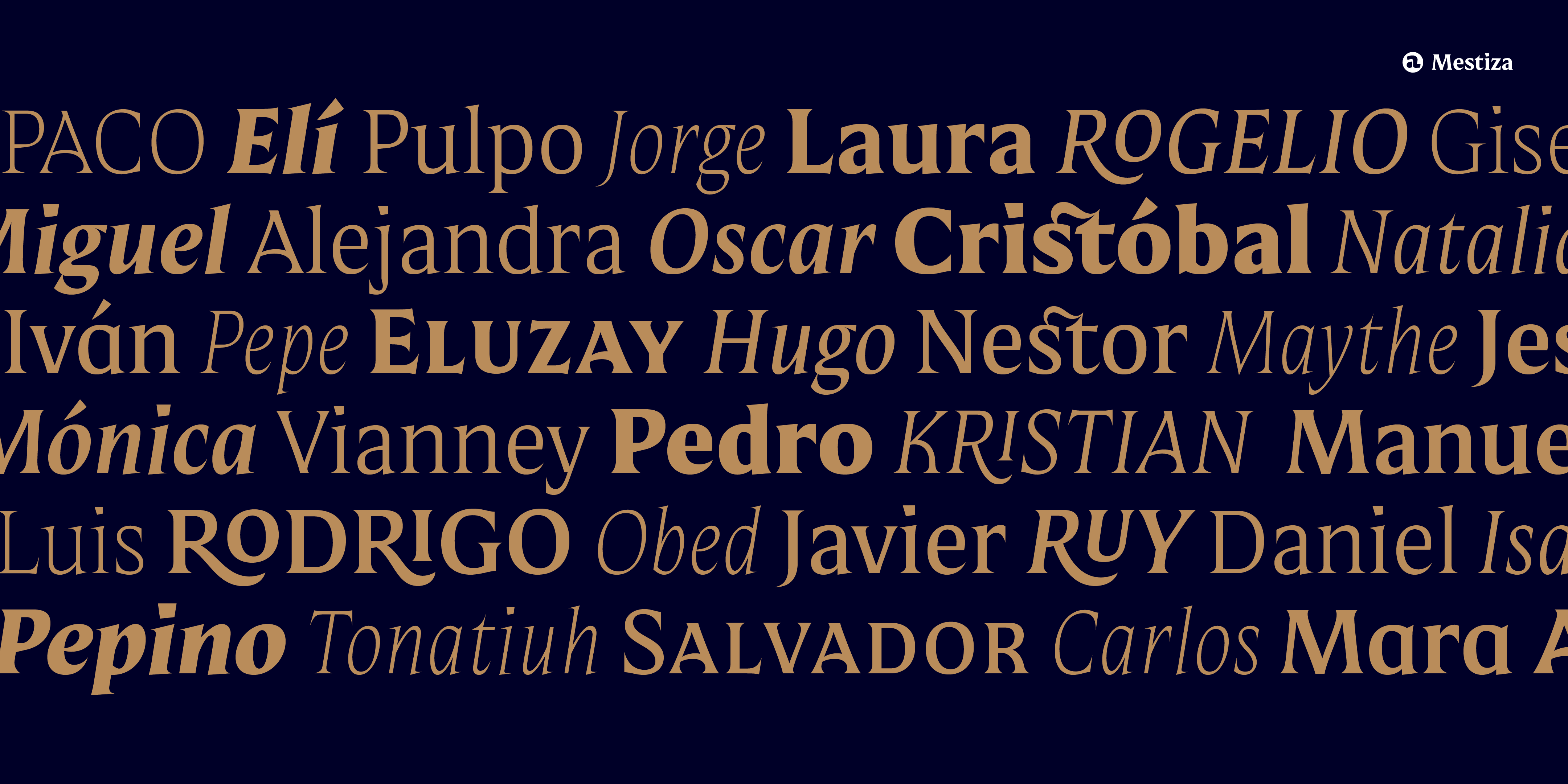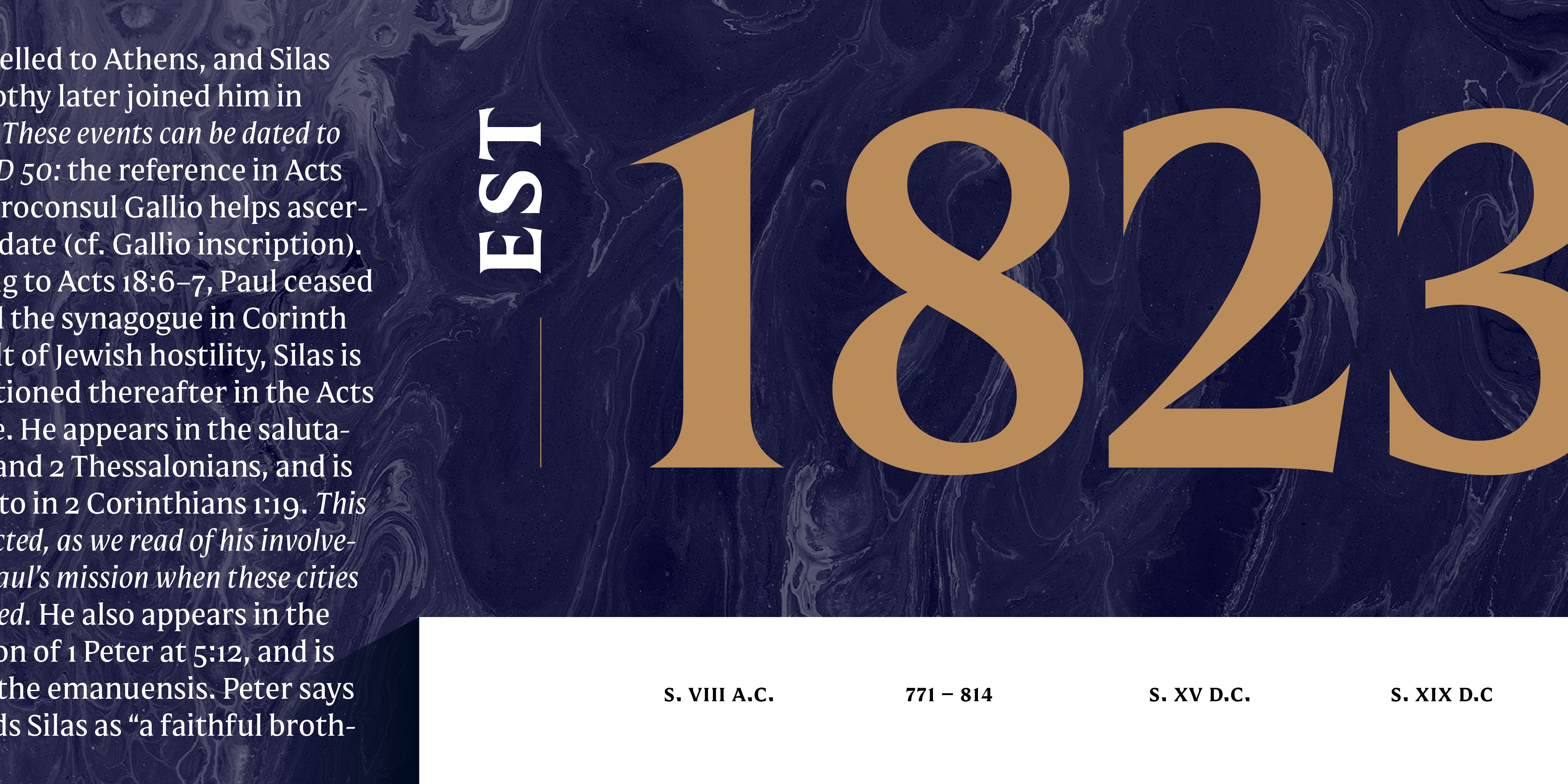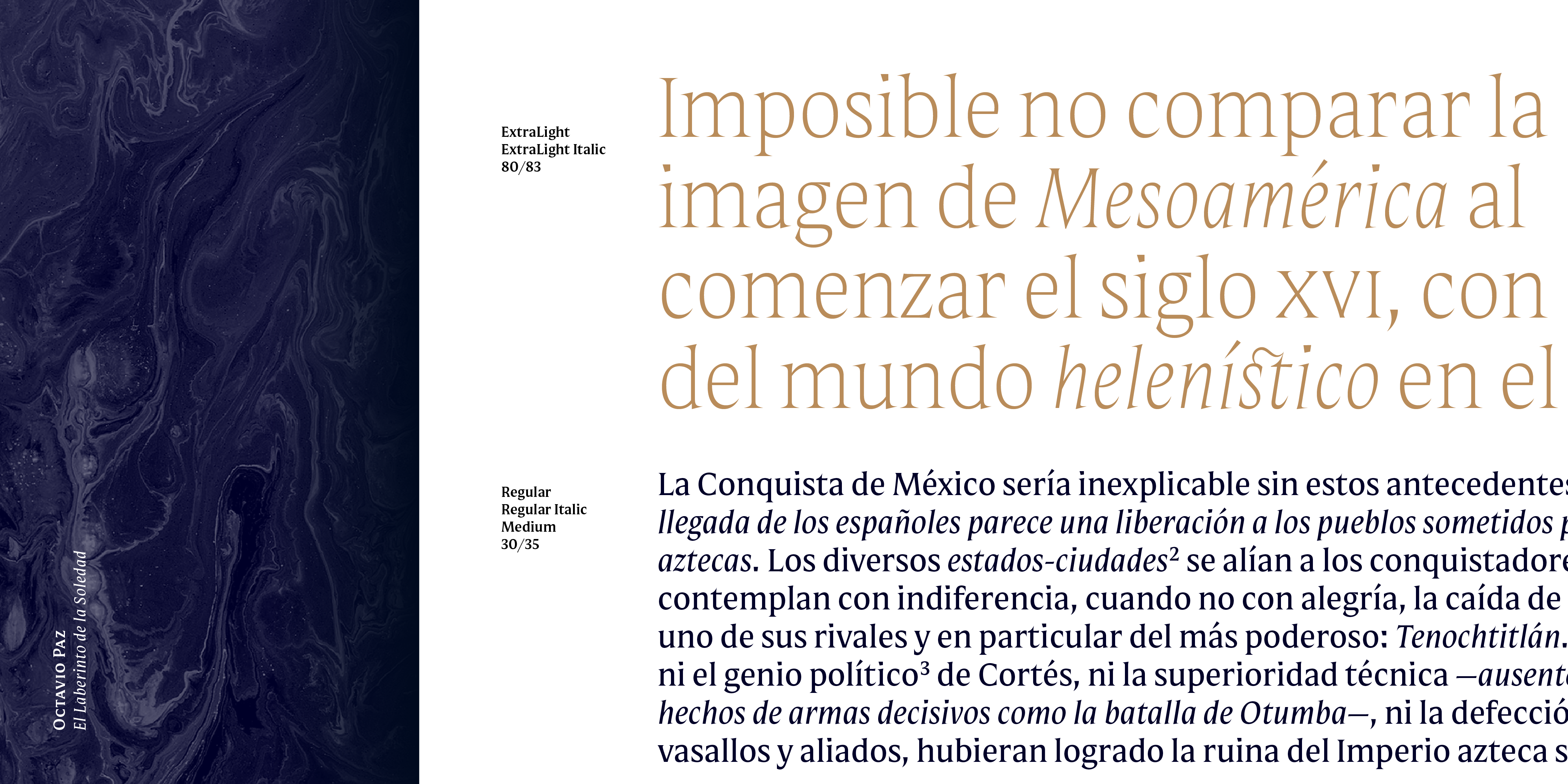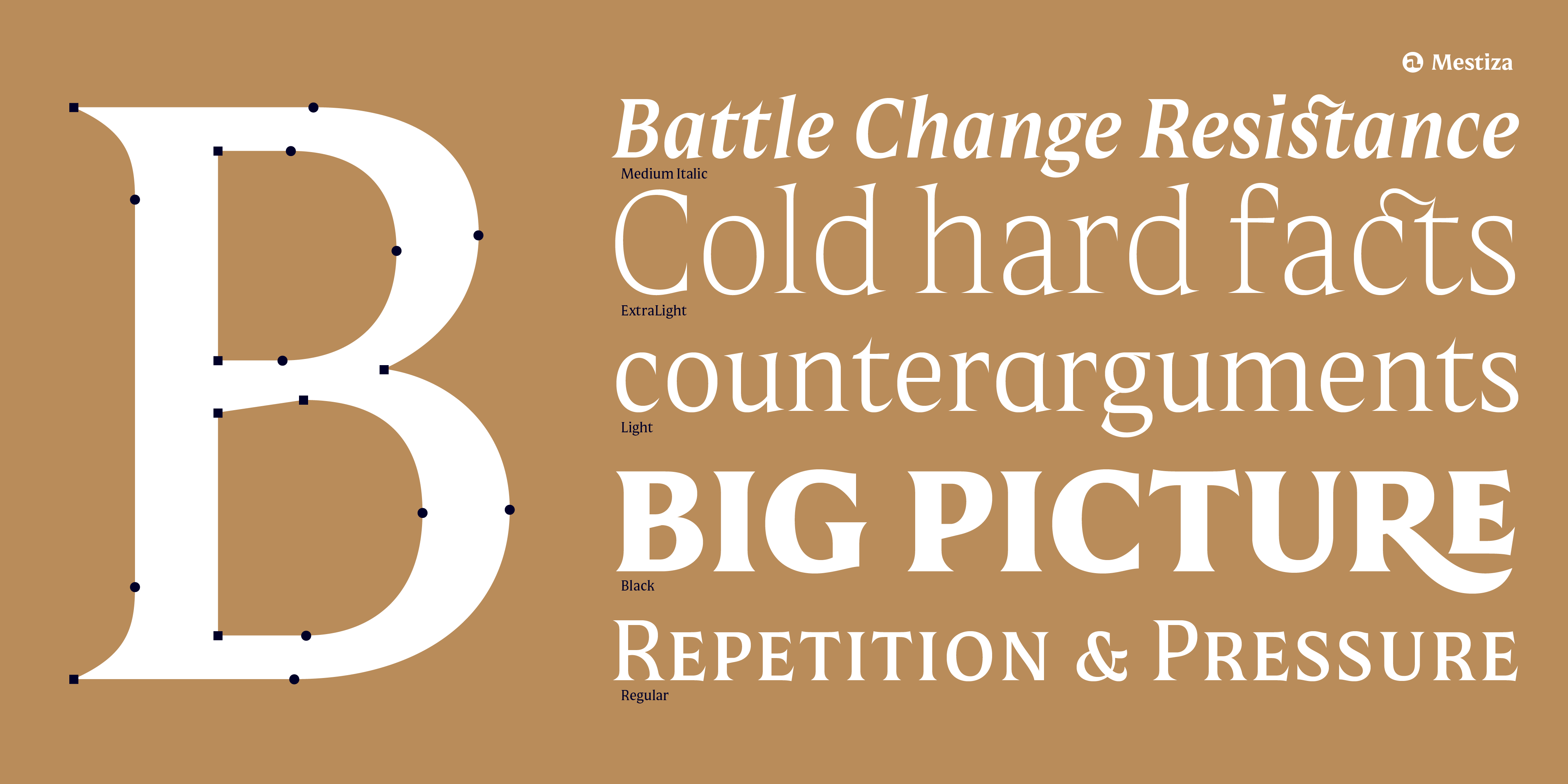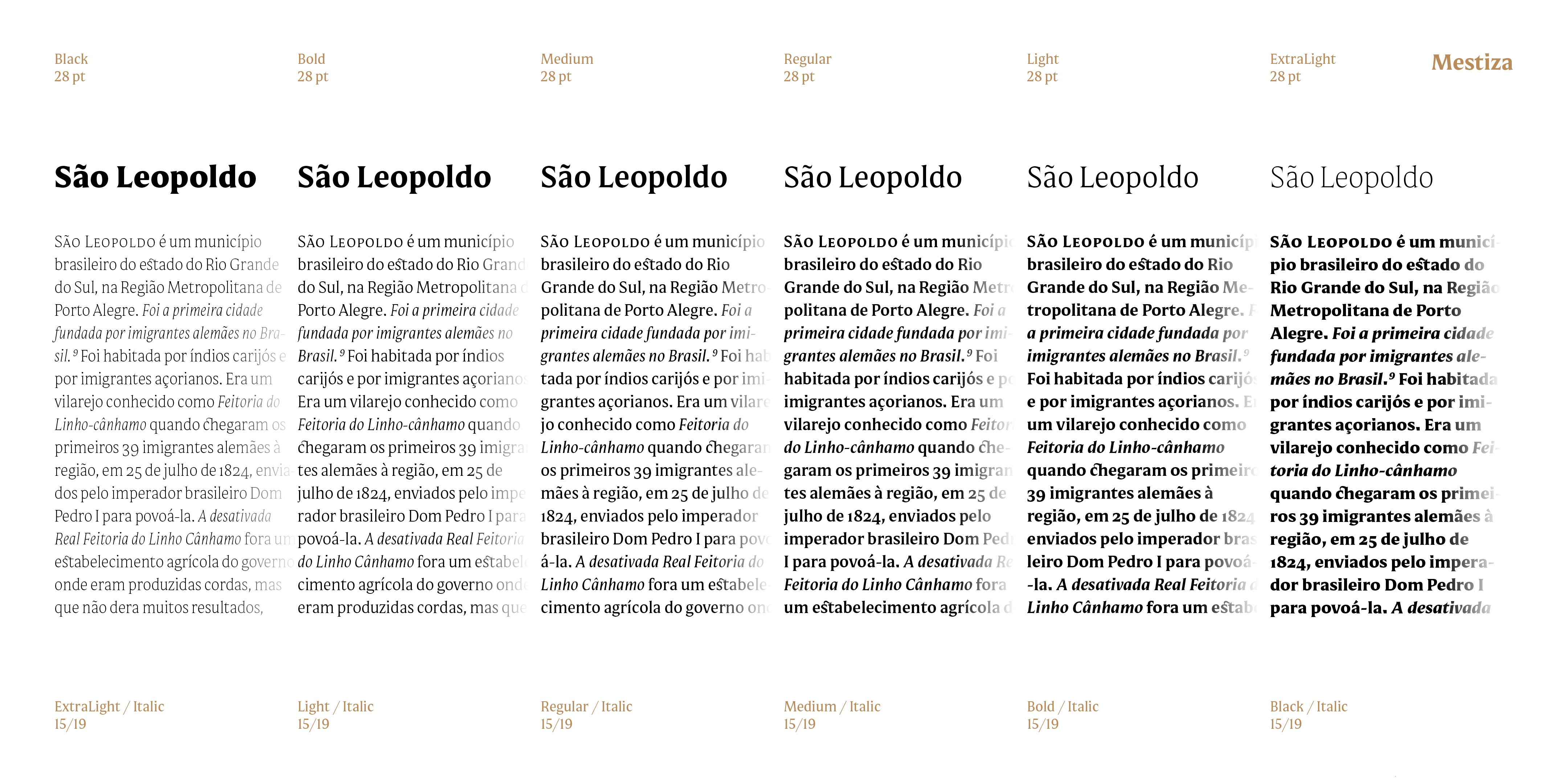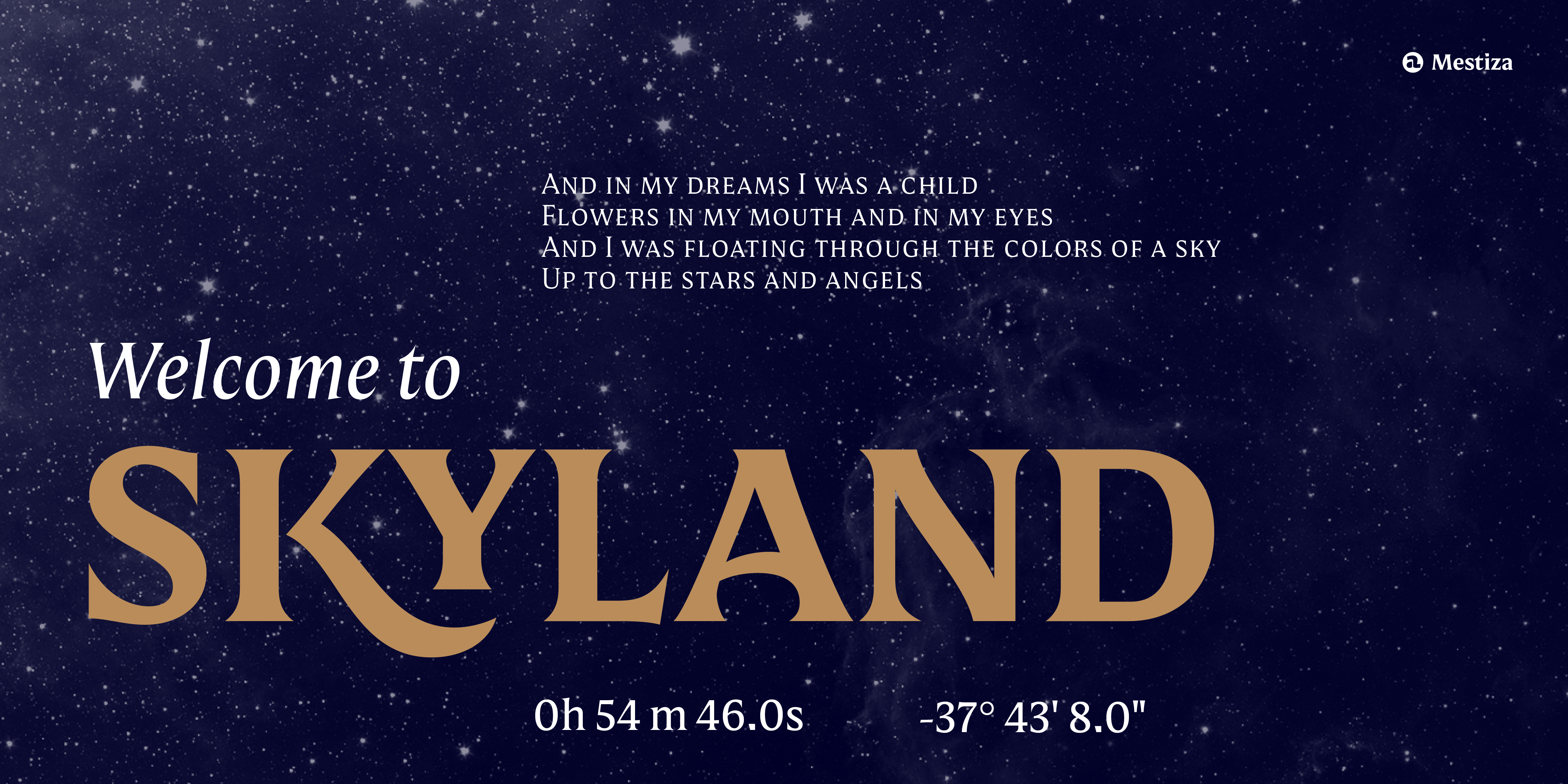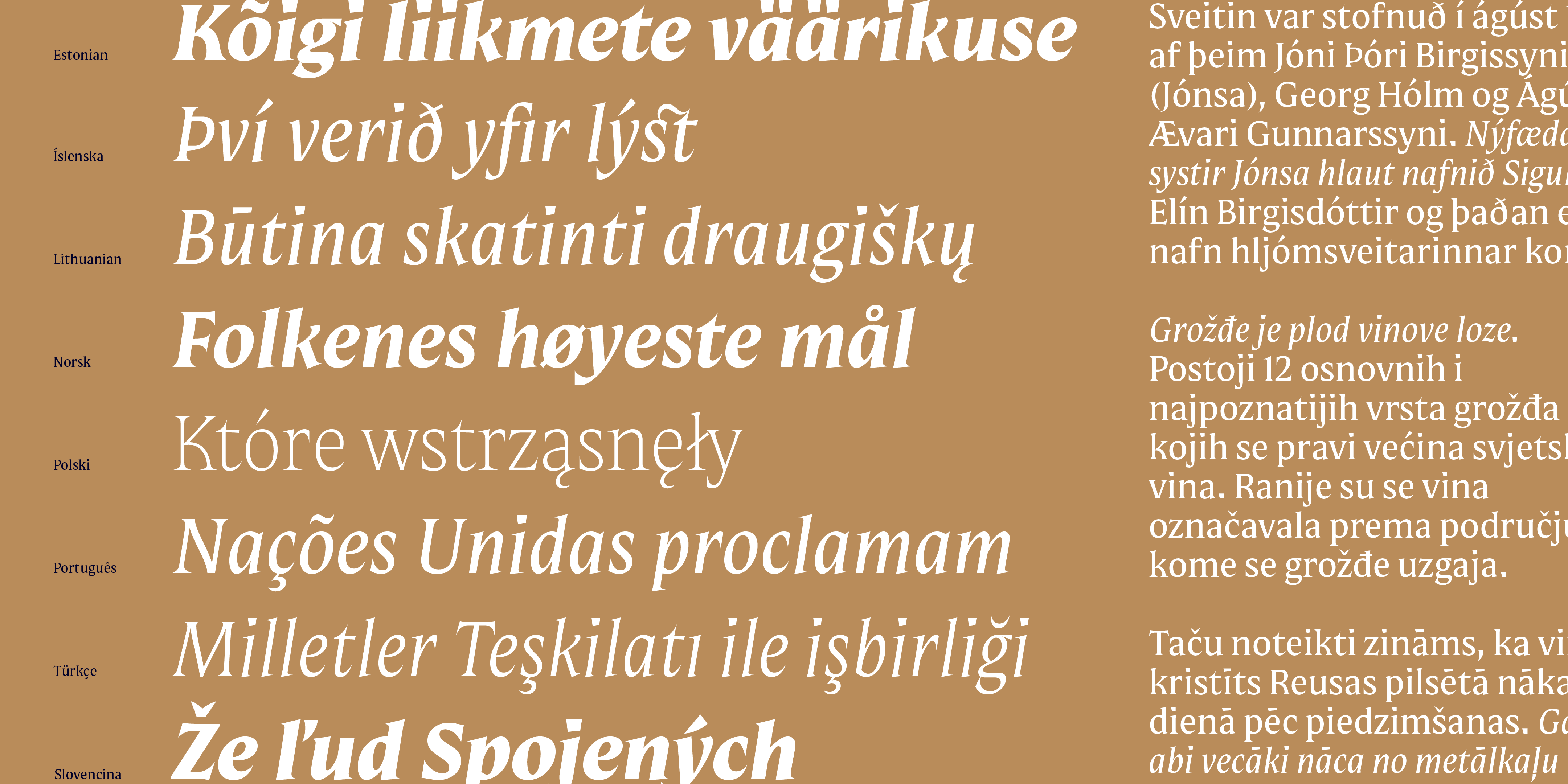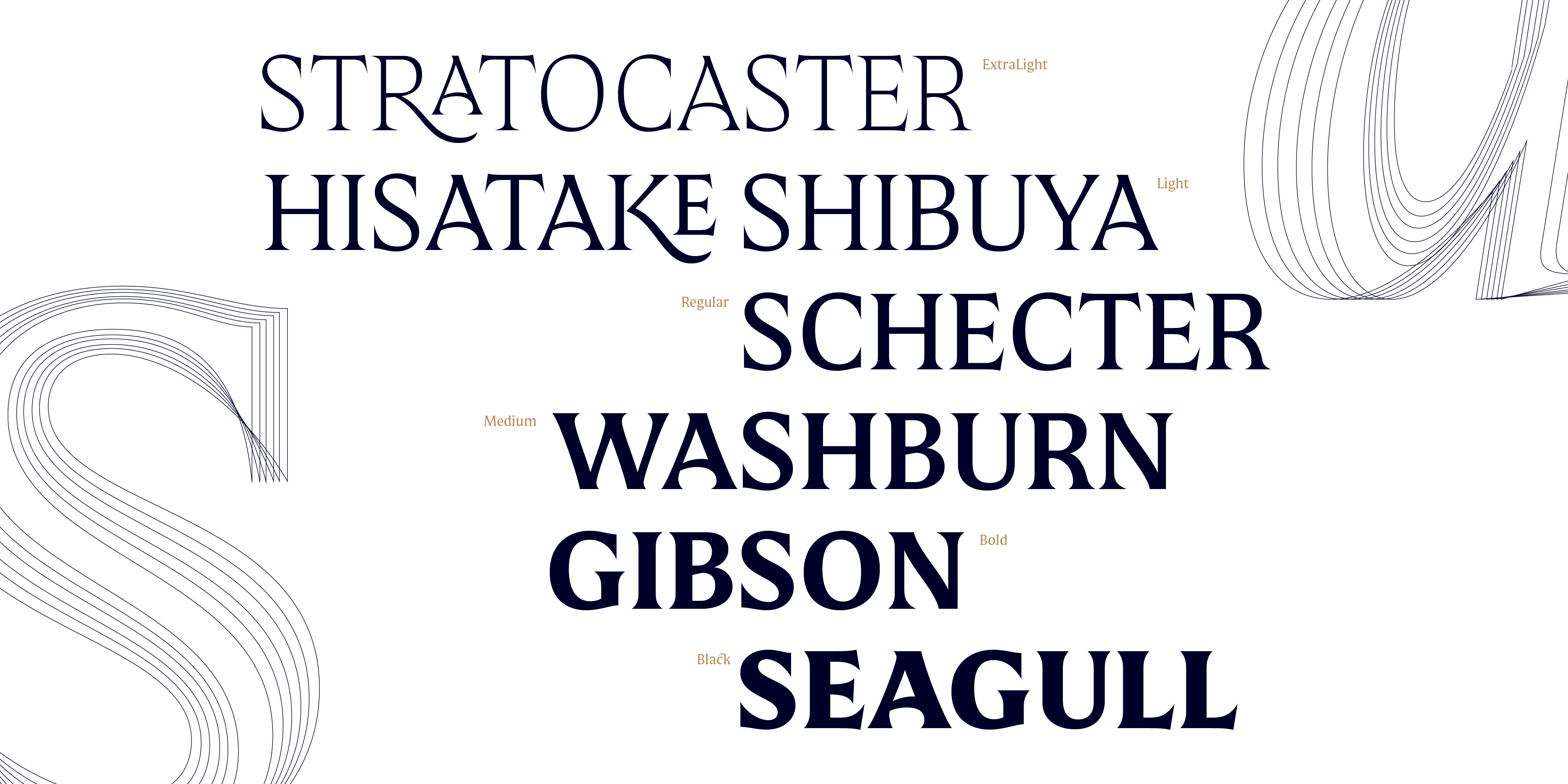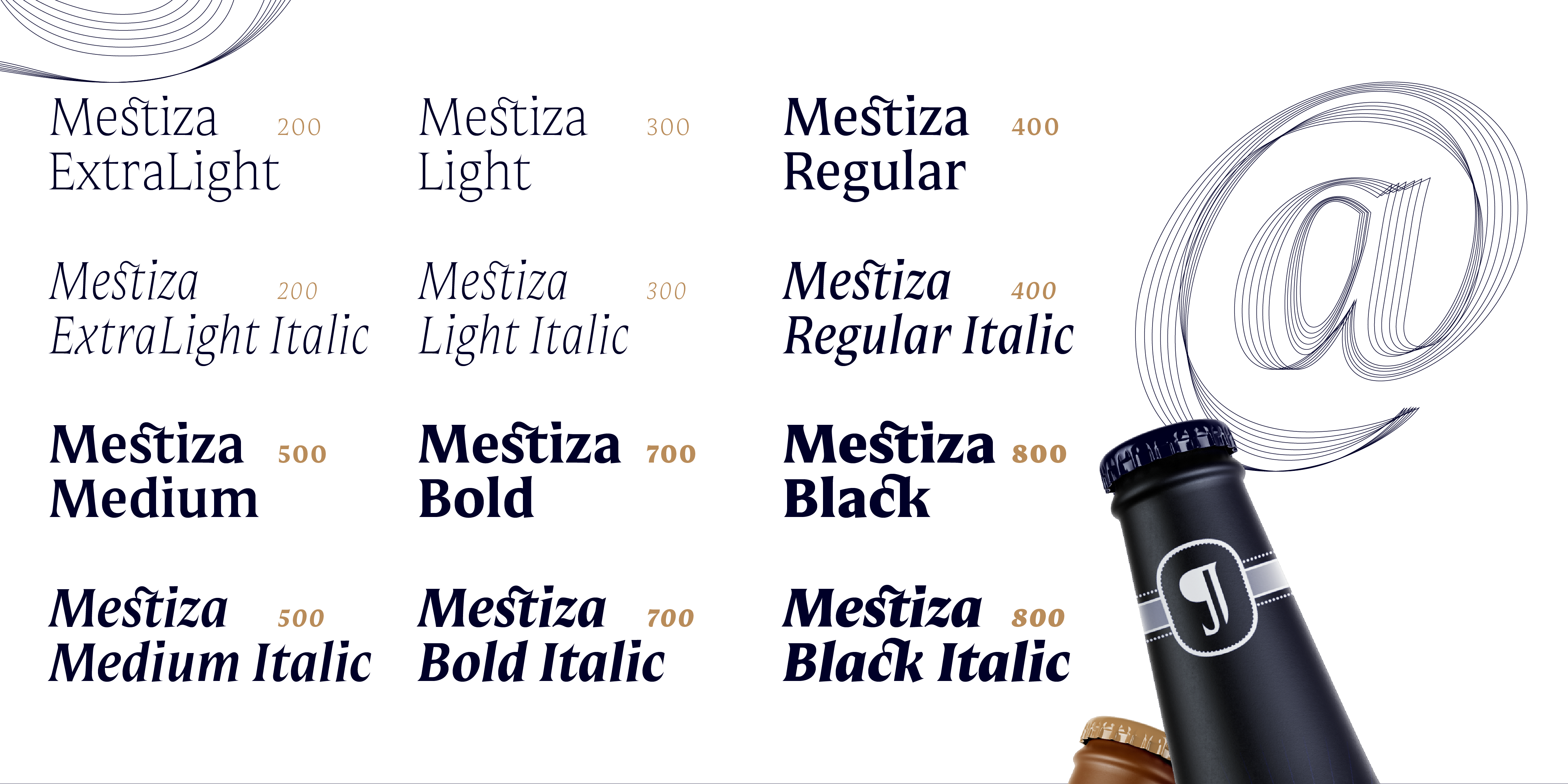
Mestiza
A Type Family Where Ancient Roots Meet Contemporary Design
Mestiza is a type family with a living past, combining its ancient roots with handmade qualities and a contemporary approach in a spirited mix that evokes elegance and strength.
A Type Family with a Living Past
Mestiza brings ancient roots and handmade qualities into a contemporary typographic expression.
Thanks to its sharp terminals and high contrast, Mestiza acquires a unique personality that combines elegance and strength.
Designed by: Antonio Mejía Lechuga.
A Living Past. A Contemporary Voice.
Designed for Headlines & Branding
Mestiza — 12 variants, 700+ characters, support for 219 Latin-script languages, and a rich set of OpenType features. Mestiza is ideal for headlines and branding projects, where its high contrast and sharp terminals create a distinctive typographic presence.
700+ Characters & 219 Languages
Mestiza includes more than 700 characters and supports 219 languages using the Latin alphabet.
Advanced OpenType Features
Mestiza includes Small Caps, Old-Style figures, Superiors, Inferiors, Contextual and Discretionary ligatures, Symbols, and some Alternates.
These features provide additional flexibility for editorial and display typography.
Designed for Expressive Typography
Mestiza combines its historical roots, handmade character, sharp terminals, and high contrast to create a distinctive type family for headlines and branding projects.